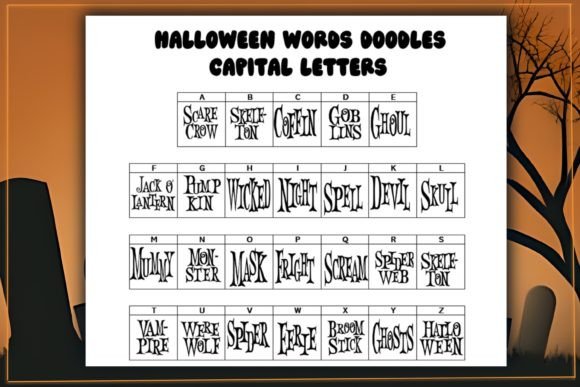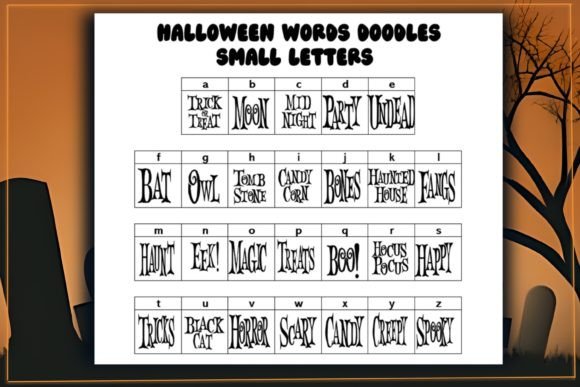
Unleash the Spoirit of Halloween with the Halloween Words Font
As the spookiest time of the year approaches, designers and crafters are on the lookout for unique and creative ways to add a touch of Halloween magic to their projects. If you’re looking for a font that will send shivers down the spines of your audience, look no further than the Halloween Words Font. This creepy collection of words is perfect for adding a haunting touch to your documents, posters, invitations, and more.
What is the Halloween Words Font?
The Halloween Words Font is a digital font composed of 52 spine-chilling words that will add a scream to your designs. From classic Halloween terms like “Boo” and “Ghost” to more eerie phrases like “Skeleton” and “Zombie”, this font has everything you need to create a howling good time. The best part? You can use these creepy words in your projects just like you would any other font.
With 52 words to choose from, the possibilities are endless for designers and crafters. Here are just a few ideas to get you started:
- Classroom Decorations: Add a spooky touch to your classroom with Halloween-themed decorations, such as welcome signs, bulletin boards, and window clings.
- Home Decorations: Create a haunted house atmosphere with creepy window clings, wall art, and centerpieces.
- Posters and Invitations: Create eye-catching posters and invitations for Halloween parties, haunted houses, and other spooky events.
- Greeting Cards and Social Media Posts: Send spooky greetings to friends and family with custom Halloween cards and social media posts.
- Scrapbooks and Journals: Add a creepy touch to your scrapbooks and journals with Halloween-themed words and phrases.
- Postcards and Stationery: Create spooky postcards and stationery to send to friends and family.
Tips and Tricks for Getting the Most Out of the Halloween Words Font
Here are a few tips and tricks to help you get the most out of the Halloween Words Font:
- Experiment with Different Font Sizes: Play around with different font sizes to create a sense of depth and dimension in your designs.
- Combine with Other Fonts: Combine the Halloween Words Font with other fonts to create a unique and eye-catching design.
- Add Images and Graphics: Add images and graphics to your designs to create a more dynamic and interesting layout.
- Use in Digital Projects: Don’t be afraid to use the Halloween Words Font in digital projects, such as social media posts and online graphics.
The Halloween Words Font is a must-have for designers and crafters looking to add a touch of Halloween magic to their projects. With 52 creepy words to choose from, the possibilities are endless. Whether you’re creating classroom decorations, home decorations, posters, invitations, or social media posts, this font is sure to send shivers down the spines of your audience. So why wait? Download the Halloween Words Font today and get creative with your Halloween designs!